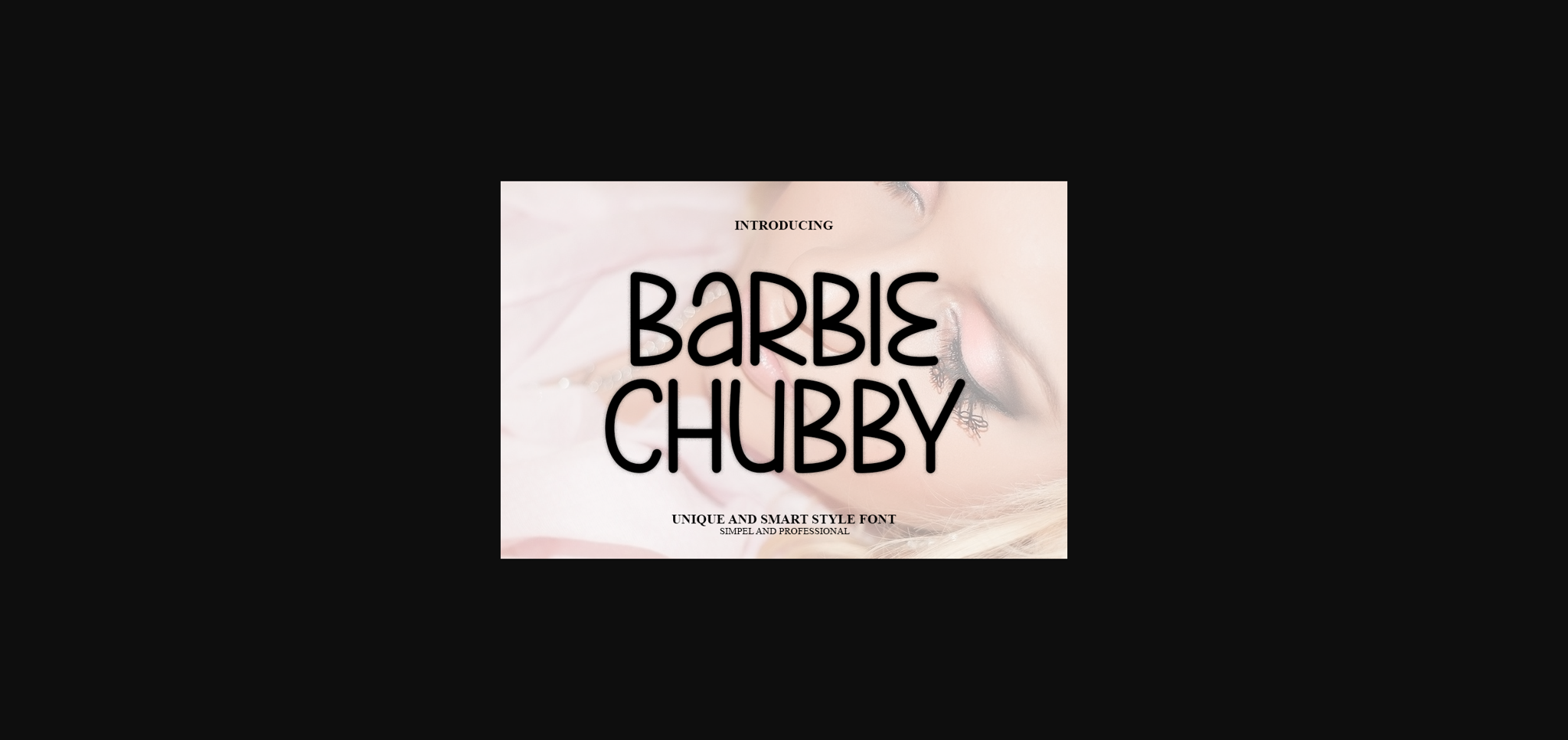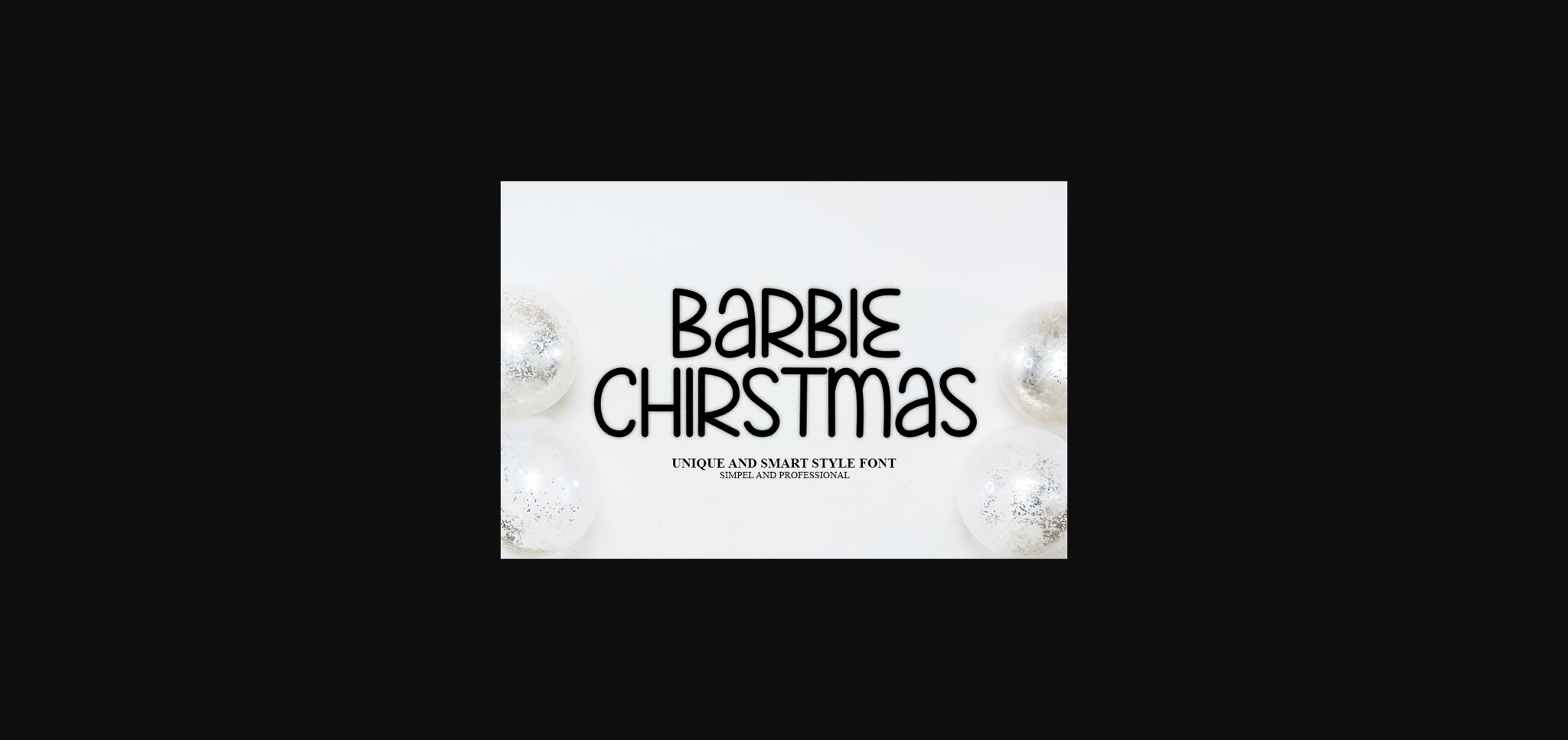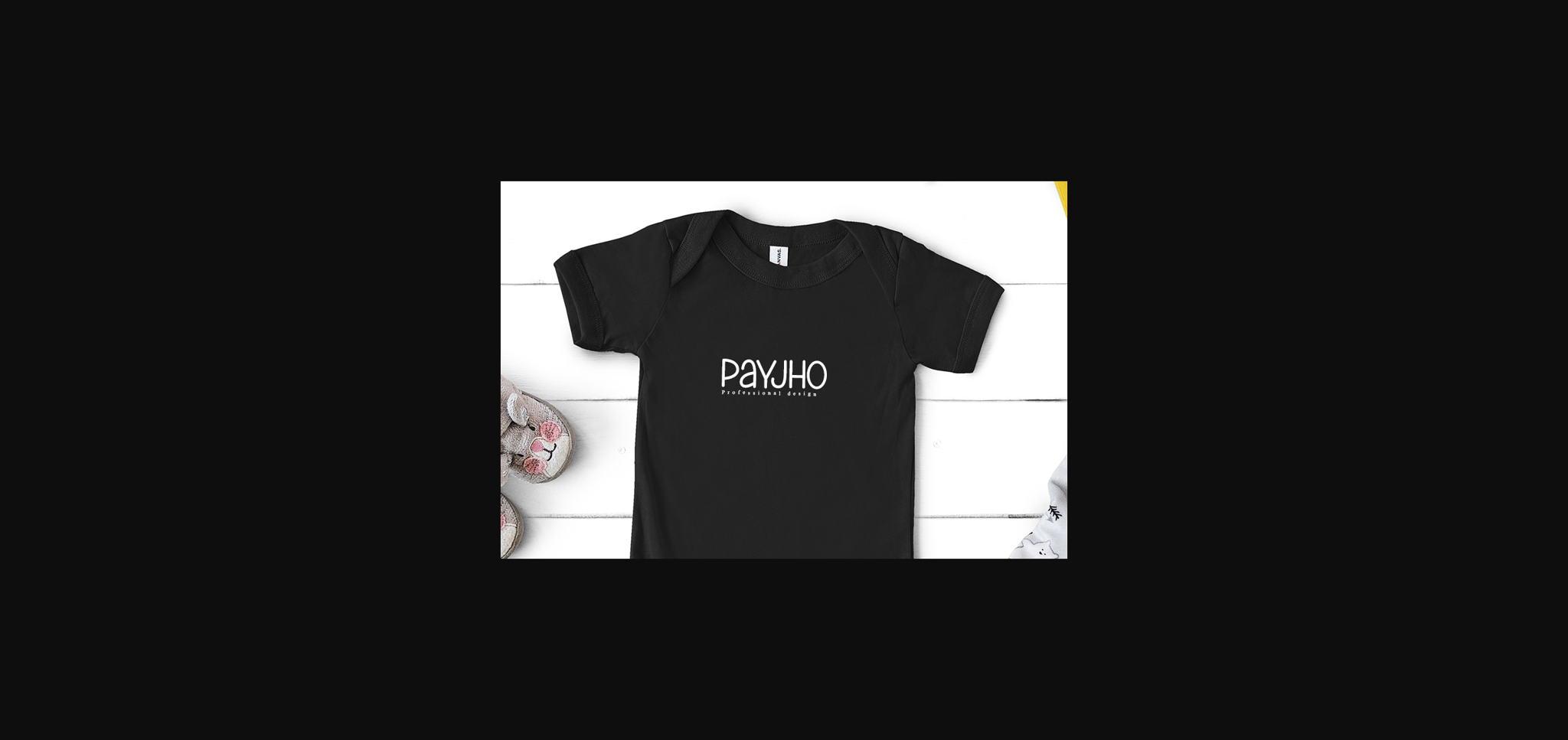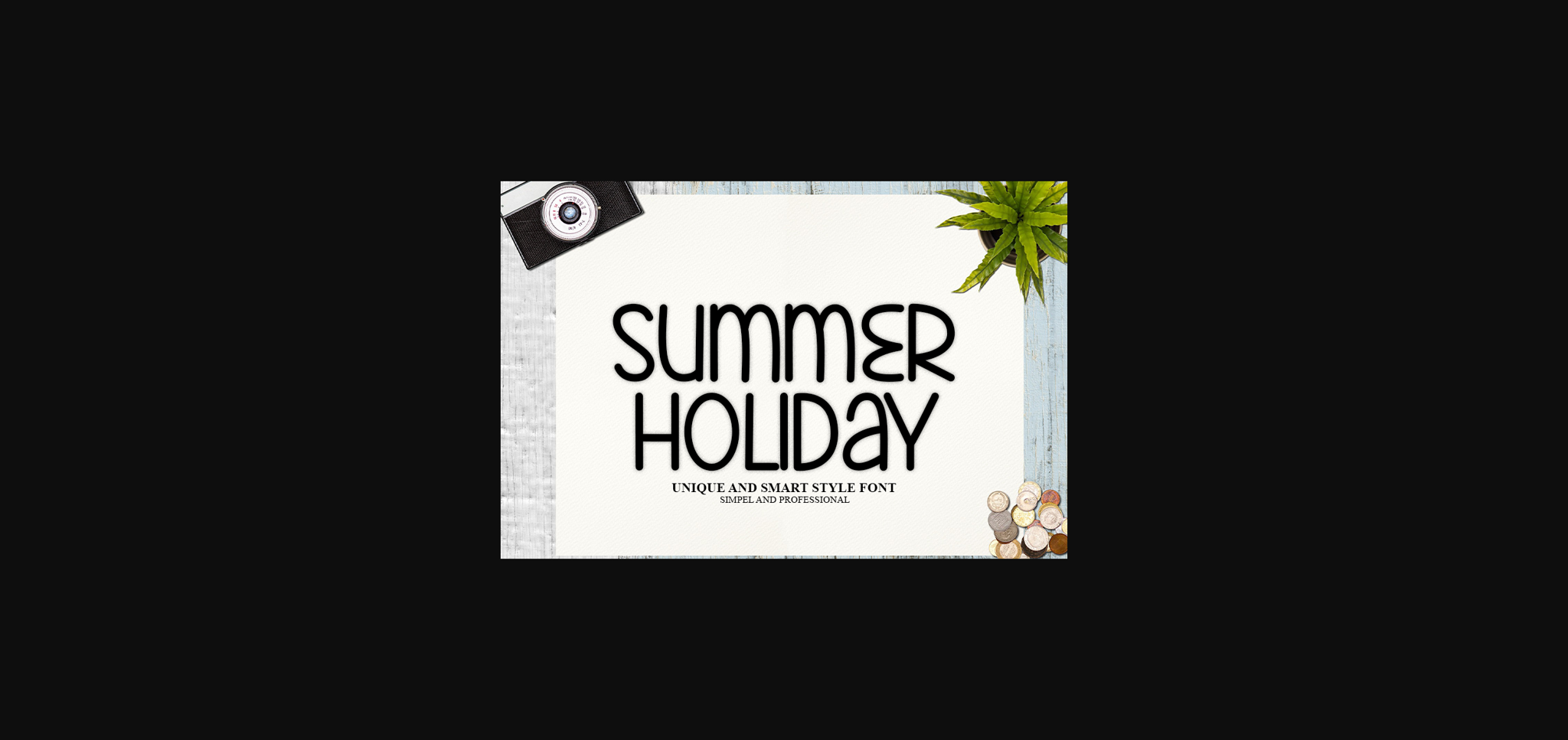
About Barbie Chubby Font
Barbie Chubby is a cool and modern sans-serif font. Whether you’re using it for crafts, digital design, presentations, or making greeting cards, this font has the potential to become your favorite go-to font, no matter the occasion.